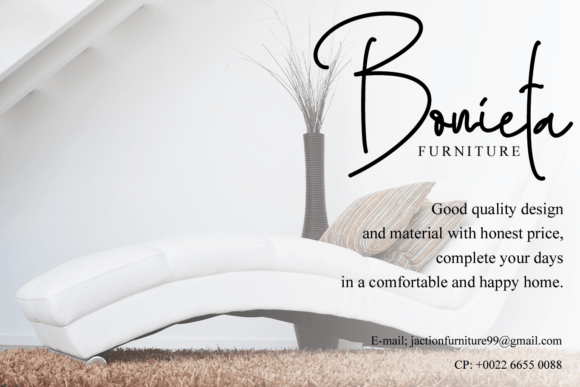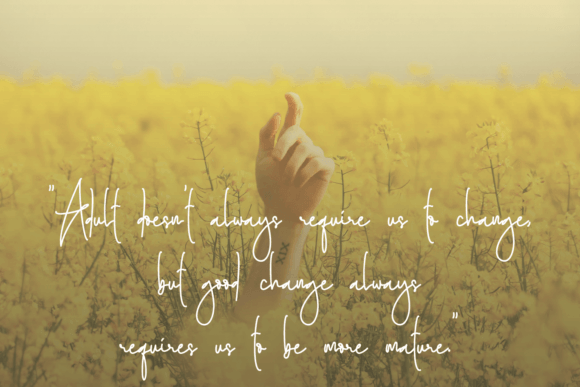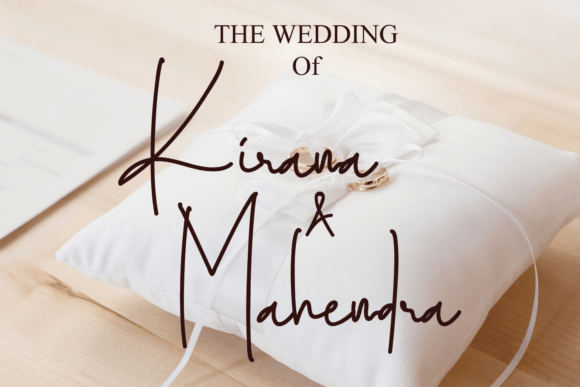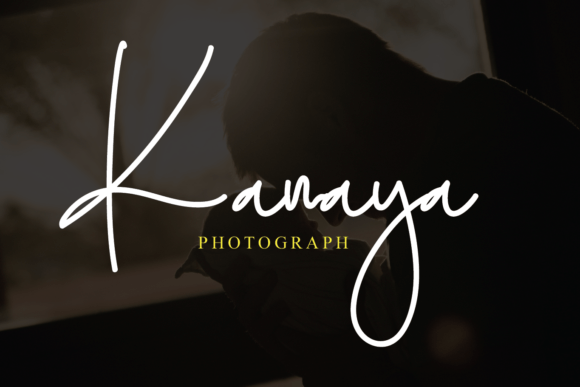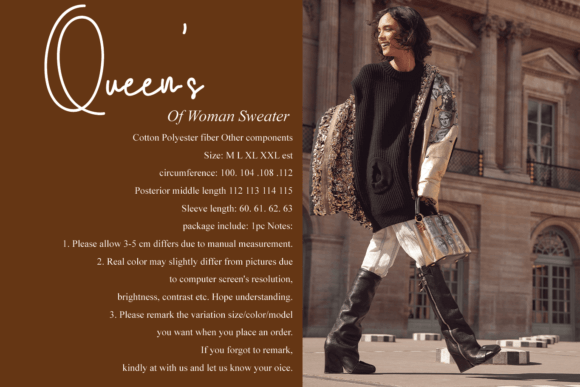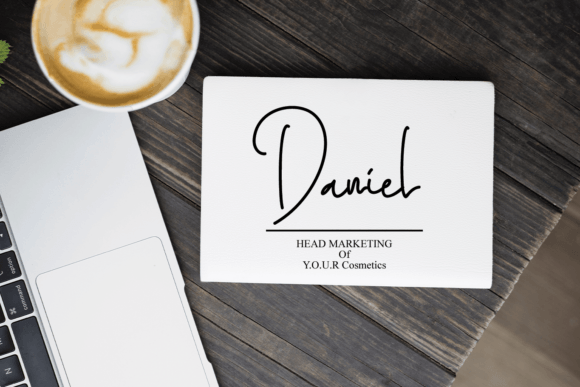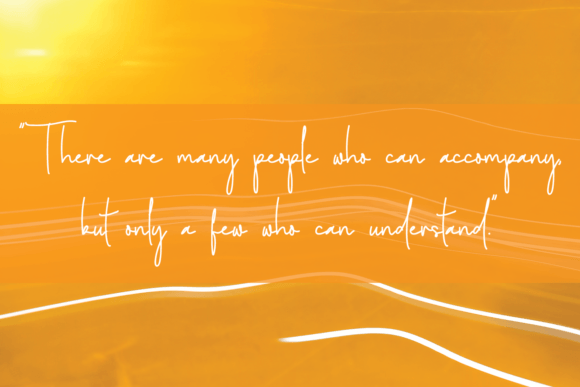
Yellow Font
About Yellow Font
“Yellow” is an exquisite handwritten font meticulously designed to become a true favorite. It seamlessly blends classy calligraphic influences with a contemporary and fresh feel, making it a versatile and timeless choice for a variety of creative projects.
The font’s calligraphic influences contribute to its elegant and refined appearance. Each letter is crafted with precision, reflecting the artistry of traditional calligraphy. This brings a sense of grace and sophistication to the font, making it suitable for projects that demand a touch of timeless and classy aesthetics.
At the same time, “Yellow” maintains a contemporary and fresh feel, ensuring that it remains relevant and appealing in modern design contexts. This balance makes it suitable for a wide range of applications in today’s diverse creative landscape.
Whether you’re working on branding, invitations, social media graphics, or any other design project, “Yellow” introduces a delightful and distinctive quality to your typography. It adds a personal touch to your creations, making them stand out with a friendly and approachable vibe.
In branding, “Yellow” becomes a key element in creating a memorable and sophisticated brand identity. Its unique fusion of classic and contemporary elements sets your brand apart, leaving a positive and lasting impression on your audience.
For invitations, the font adds a touch of warmth and elegance. Whether used for wedding invitations, event announcements, or any project where a refined and stylish touch is desired, “Yellow” enhances the overall design.
In social media graphics and marketing materials, the font brings a classy yet approachable vibe. Its timeless elegance makes it suitable for conveying messages in a visually appealing and sophisticated manner.
Overall, “Yellow” is a font that invites you to embrace its exquisite and versatile nature. Its ability to balance traditional calligraphic influences with a contemporary feel makes it an excellent choice for designers seeking a font that adds a touch of timeless elegance and modern sophistication to their projects.